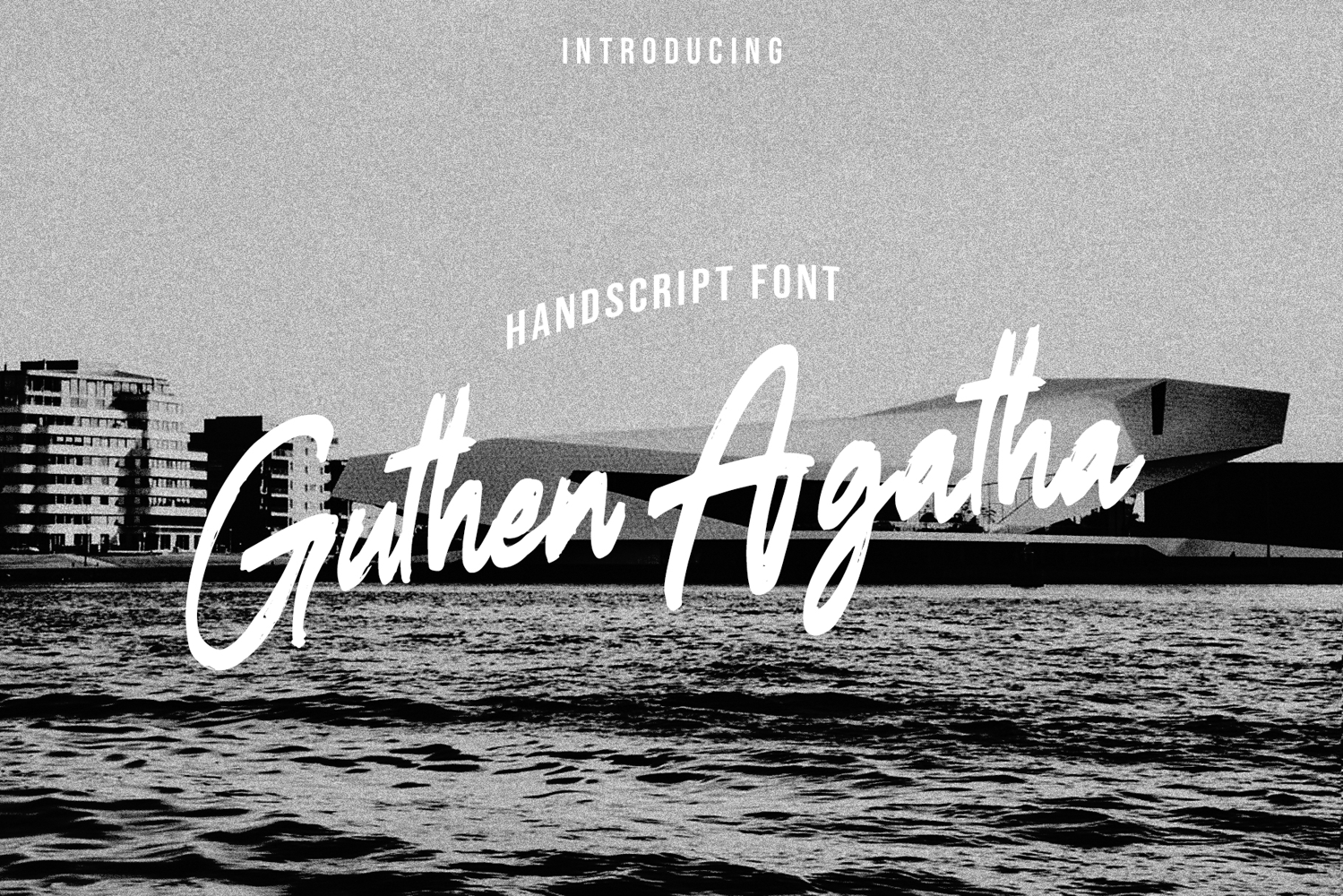
Guthen Agatha
Guthen Agatha font with new style, this font will perfect for many different project ex: quotes, logo, blog header, poster, banding, fashion, apparel, letter, invitation, stationery, etc...